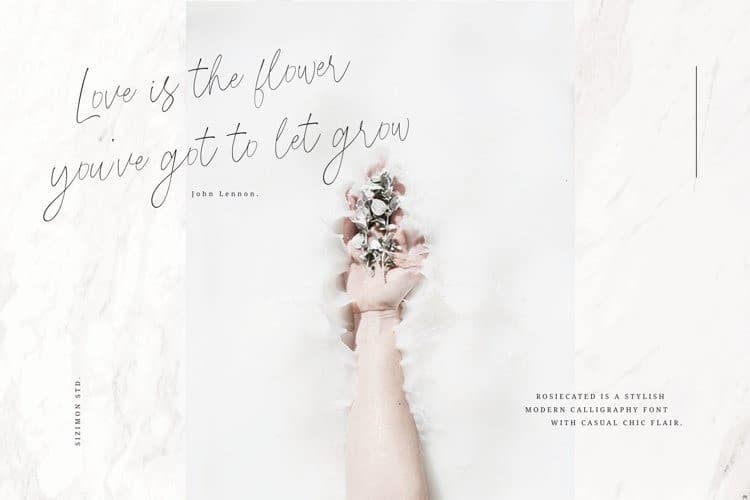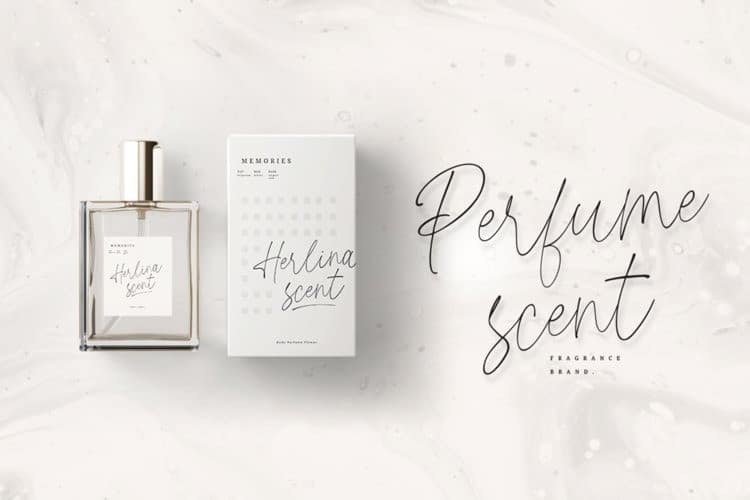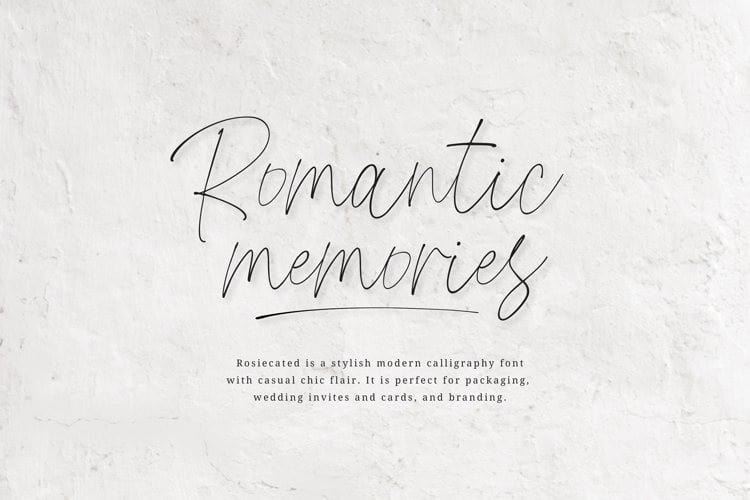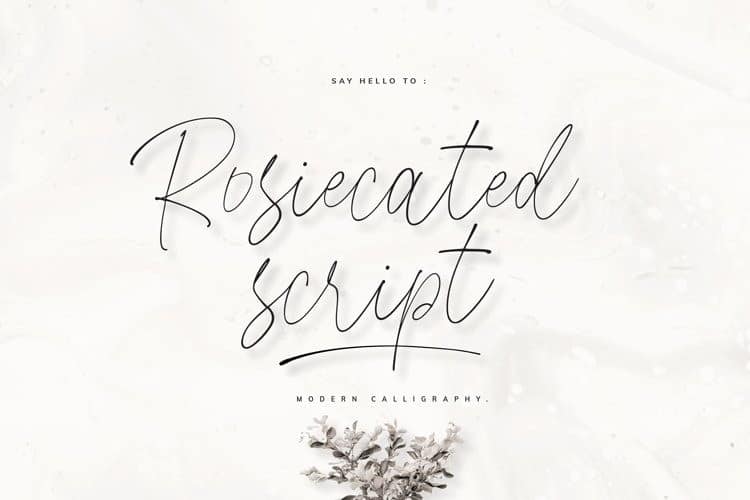
Rosiecated Script Font
Rosiecated Script Font is a modern signature font with natural and handwritten style. It brings a elegant and attractive typeface. Trendy and feminine style. Our font will be advocates for purposes such as wedding invitations, thank you cards, quotes, greeting cards, logos, business cards, party, graduation, birthday, gathering, etc. Rosiecated Script Font is will show you with a full set of lower & uppercase letters, a large range of punctuation, numerals, and multilingual support.